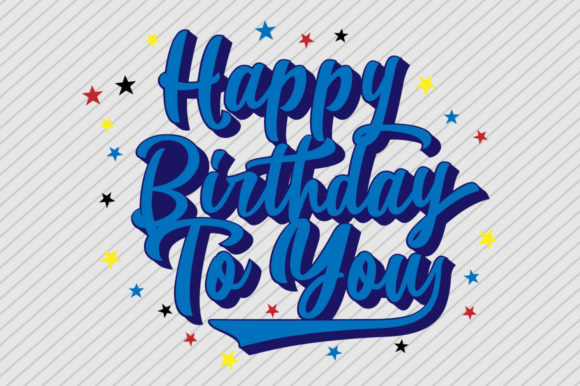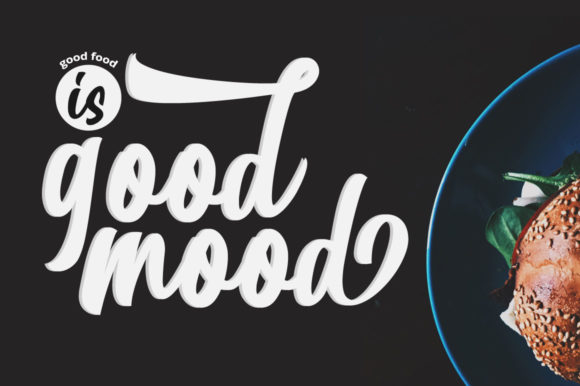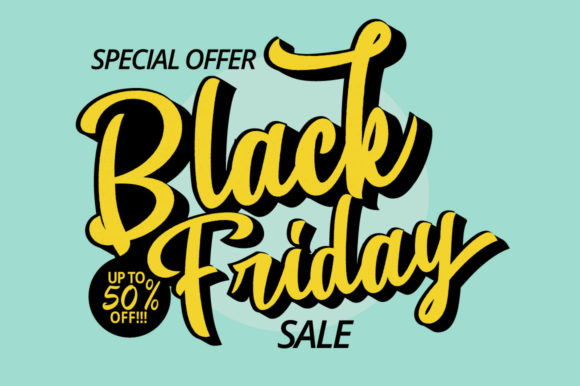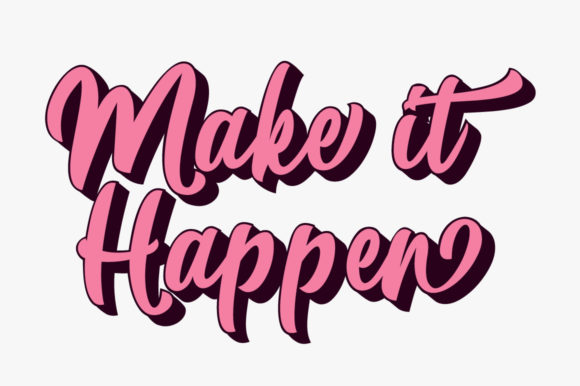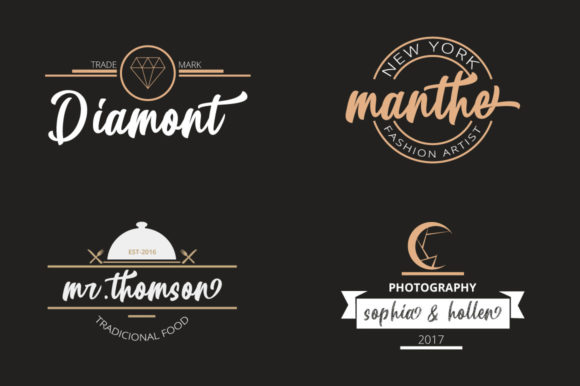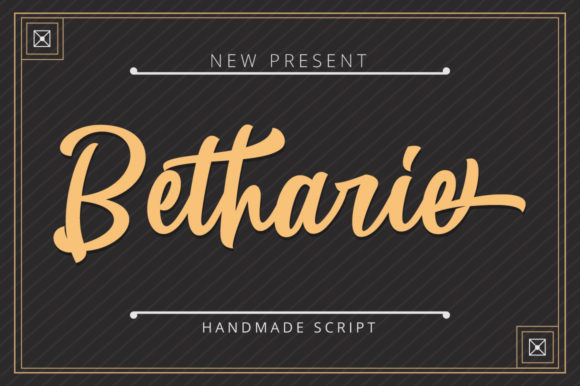
Betharie Font: A Bold and Friendly Script Font for Your Creative Projects
Are you tired of using the same old fonts for your creative projects? Look no further than the Betharie font, a bold and unique script font that is sure to add a touch of personality to your designs. With its friendly appearance and versatility, Betharie is perfectly suited for a wide variety of projects, from crafting and scrapbooking to branding and advertising.
What is Betharie Font?
Betharie is a script font that is characterized by its bold and cursive letters. It has a friendly and approachable feel, making it perfect for designs that require a personal touch. The font is highly legible, even at smaller sizes, making it ideal for use in a variety of applications, from digital designs to print materials.
Key Features of Betharie Font
• Bold and Unique: Betharie font is a bold and unique script font that is sure to stand out in any design.
• Friendly Appearance: The font has a friendly and approachable feel, making it perfect for designs that require a personal touch.
• Highly Legible: Betharie font is highly legible, even at smaller sizes, making it ideal for use in a variety of applications.
• Versatile: The font is perfectly suited for a wide variety of projects, from crafting and scrapbooking to branding and advertising.
Uses of Betharie Font
Betharie font is a versatile font that can be used in a wide range of projects, including:
• Crafting and Scrapbooking: Add a personal touch to your crafting and scrapbooking projects with the Betharie font.
• Branding and Advertising: Use Betharie font to create bold and eye-catching branding and advertising materials.
• Digital Designs: Use Betharie font in your digital designs, such as social media graphics, blog posts, and website headers.
• Print Materials: Use Betharie font in your print materials, such as brochures, flyers, and business cards.
Tips for Using Betharie Font
Here are some tips for using Betharie font in your designs:
• Use it as a Headline Font: Use Betharie font as a headline font to add a bold and eye-catching touch to your designs.
• Pair it with Other Fonts: Pair Betharie font with other fonts to create a unique and interesting contrast.
• Experiment with Colors: Experiment with different colors to find the perfect combination for your design.
In conclusion, Betharie font is a bold and unique script font that is sure to add a touch of personality to your designs. With its friendly appearance and versatility, it is perfectly suited for a wide variety of projects. Whether you’re a designer, crafter, or DIY enthusiast, Betharie font is a great addition to your font collection.